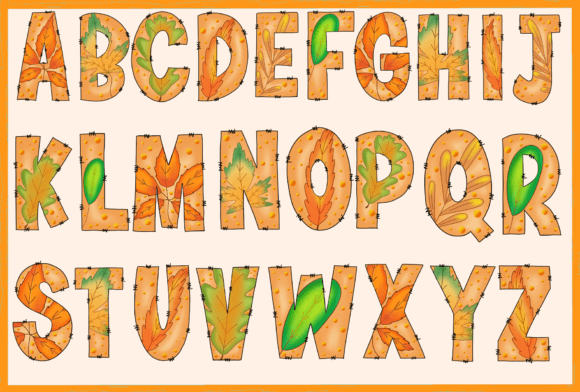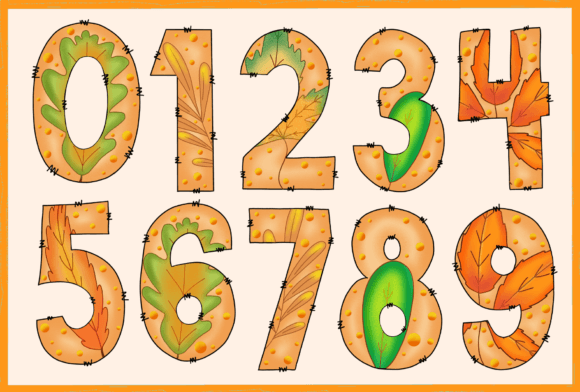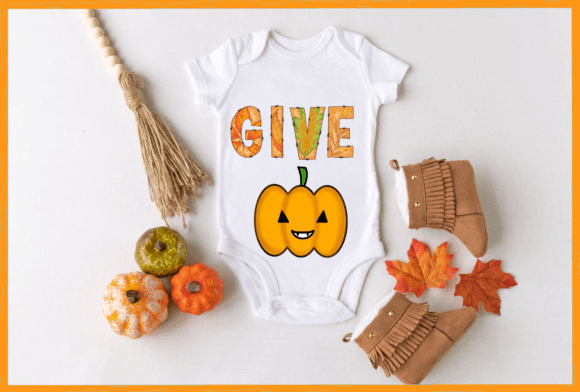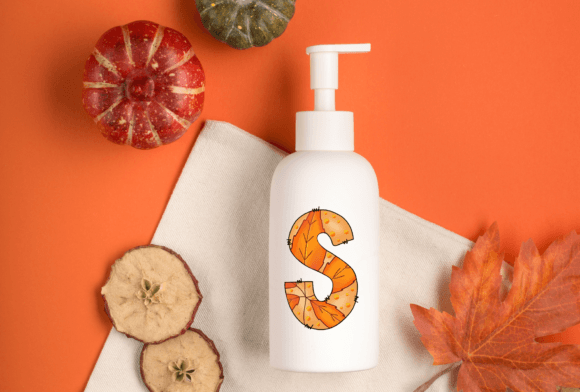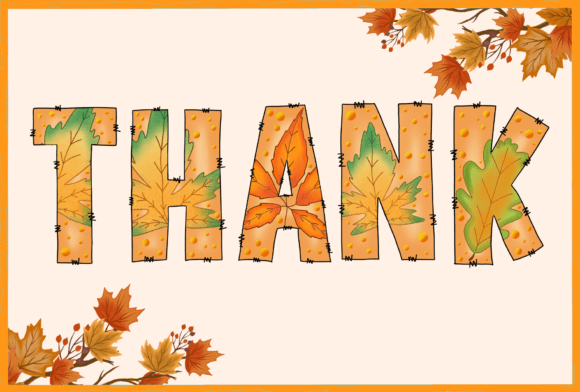
Fall in Love with Autumn Font: A Designer’s Delight
I’ll never forget the time I was working on a fall-themed project for a client, and I just couldn’t seem to find the perfect font. I scrolled through page after page of Google results, but nothing seemed quite right. That was until I stumbled upon Autumn Font. It was like a breath of fresh air – the perfect blend of whimsy and elegance that captured the essence of the season. In this article, I’ll share my love for Autumn Font, its features, and how to make the most of it in your designs.
A Personal Review of Autumn Font
- ✨ Adorable decorative style that’s perfect for fall-themed projects
- 🎉 Extensive character set, including glyphs and stylistic alternates
Of course, no font is perfect, and Autumn Font has a few minor quirks to be aware of:
- 🤔 Some users may find the font a tad too ornate for very formal or traditional designs
- ⚠️ Limited multilingual support, so it’s best suited for English-language projects or those with similar character sets
The Story Behind Autumn Font
Autumn Font was designed by a talented type designer who wanted to capture the warmth and coziness of the fall season. Inspired by the changing leaves, crisp air, and rustic charm of the season, they crafted a font that’s both elegant and approachable. The result is a font that’s perfect for a wide range of design projects, from fall-themed crafts to professional marketing materials.
| What is Autumn Font best suited for? | Autumn Font is perfect for fall-themed designs, crafts, and projects that require a touch of elegance and whimsy. |
| Is Autumn Font available in multiple languages? | Autumn Font has limited multilingual support, so it’s best suited for English-language projects or those with similar character sets. |